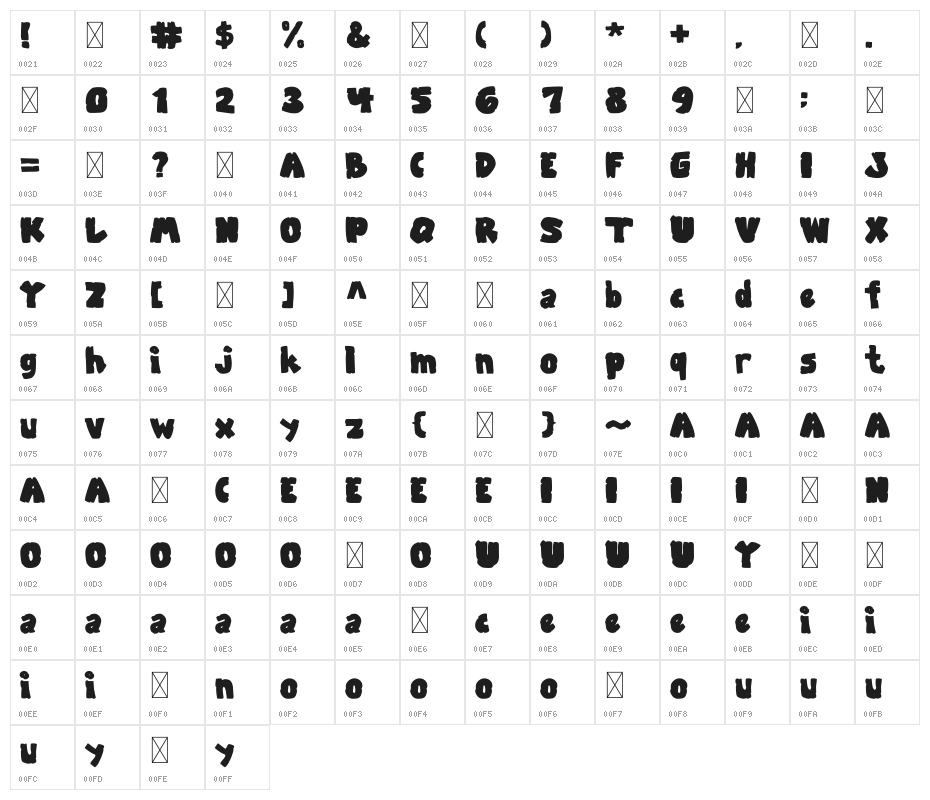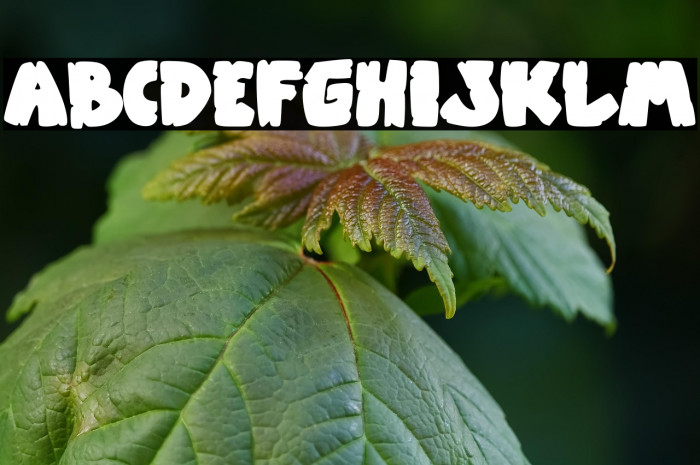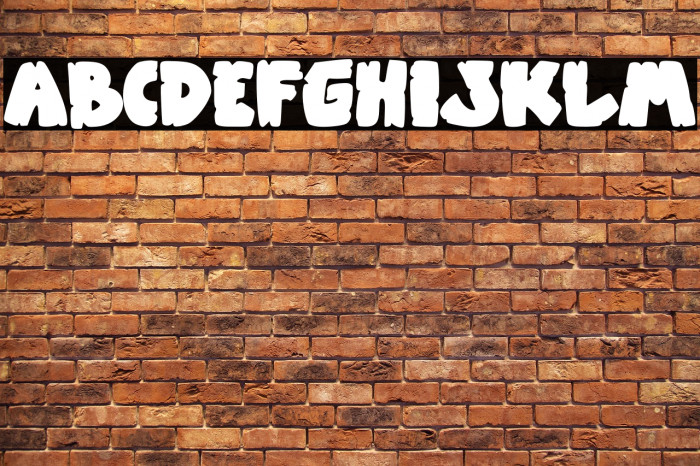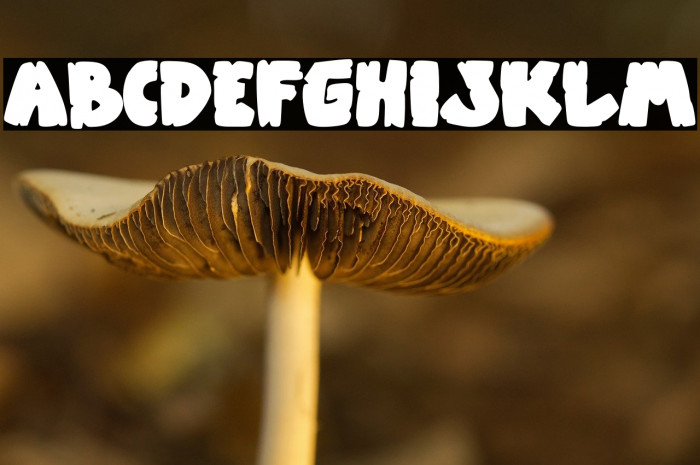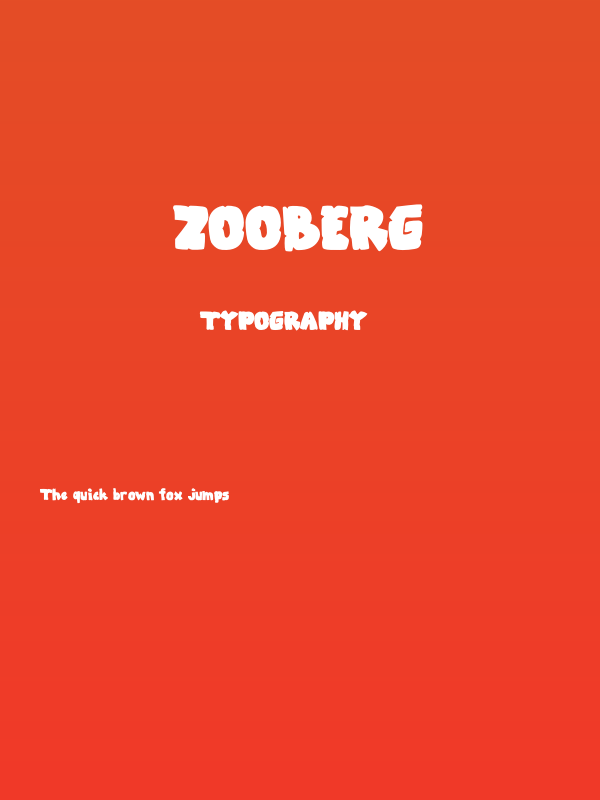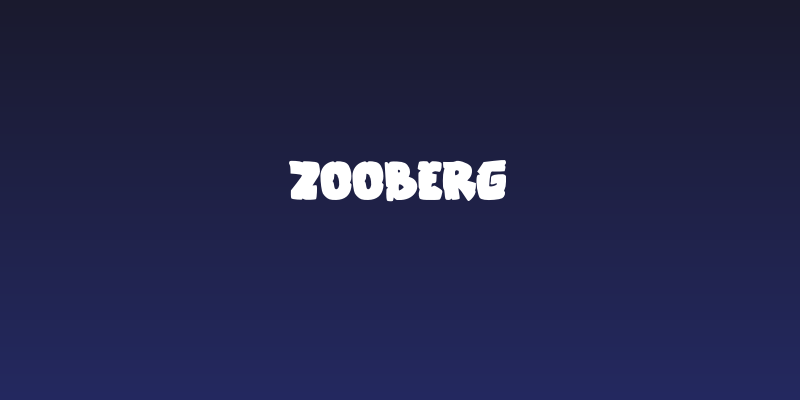
Zooberg Font
Zooberg Description
This font features bold, chunky letters with a playful and whimsical style. The characters have a hand-drawn appearance, with uneven edges and a slightly irregular form that adds to their charm. The uppercase and lowercase letters maintain a consistent weight, giving the font a cohesive look. The numbers and special characters follow the same design principles, ensuring uniformity across all glyphs. The overall style is reminiscent of graffiti or street art, making it suitable for projects that require a fun and informal touch.
| Proposed Projects | Ideal for children's book covers, playful branding, posters, and creative social media graphics. |